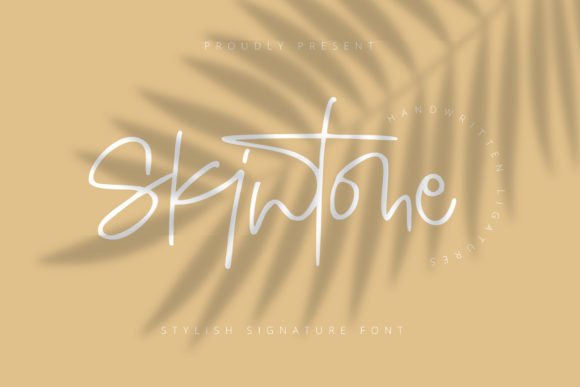
Embrace the beauty of handwritten individuality with Skintone Font, a creation of goodigital that captures the essence of relaxed and casual elegance. This script font family, renowned as the Best Font For App Ui, is a stroke of genius, designed to elevate your designs to new heights of creativity.
Skintone Font is not just a collection of letters; it's an expression of your personality, a reflection of your unique style. Its simple, relaxed, and slightly sloppy handwritten style exudes an effortless charm that will add a touch of warmth and personality to your projects.
With Skintone Font, you're not just downloading a font; you're embarking on a journey of creative exploration. Its versatility knows no bounds, making it the perfect choice for a wide range of designs, from eye-catching logos to heartfelt invitations. Whether you're a seasoned design professional or just starting out, Skintone Font is your gateway to creating designs that resonate with your audience.
Imagine the impact of your app UI adorned with Skintone Font's charming handwritten style. It will feel like an extension of your brand, an intimate connection between you and your users. The relaxed flow of the letters will guide them through your app's features, creating an intuitive and enjoyable user experience.
Skintone Font is more than just a font; it's a conversation starter. Its unique style will spark curiosity and invite your audience to engage with your brand. Whether it's through captivating social media posts, memorable marketing materials, or heartfelt personal messages, Skintone Font will leave a lasting impression.
Join the creative revolution and unlock the full potential of your designs with Skintone Font. Its simple yet striking style will transform your projects into works of art, leaving your audience captivated and inspired. Experience the magic of handwritten elegance and let Skintone Font take your creativity to new heights.